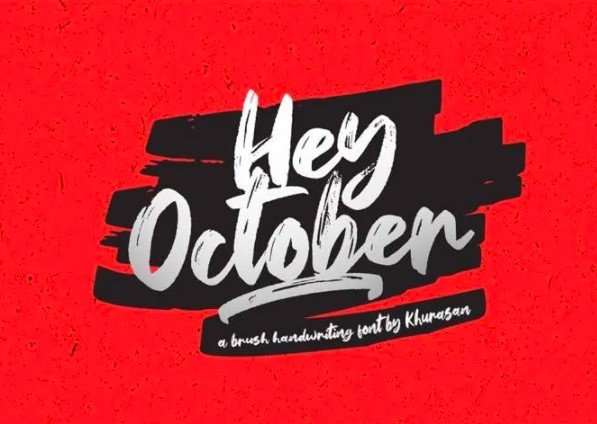
We are excited to introduce the exceptional and renowned Hey October Font, a highly-rated brushed typeface available in both TrueType and OpenType formats.
You can check out the below image to take an idea about its characters sample which we put for you. The font easily works as pairing with panton font and in large screens and can be readable from the smallest screens also.
Of course you can use the Hey October for your logo as well as all other graphic designs projects.